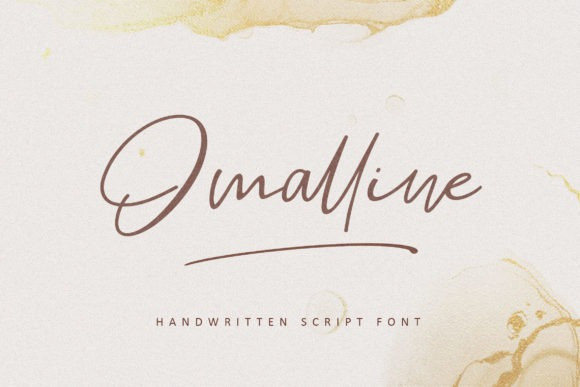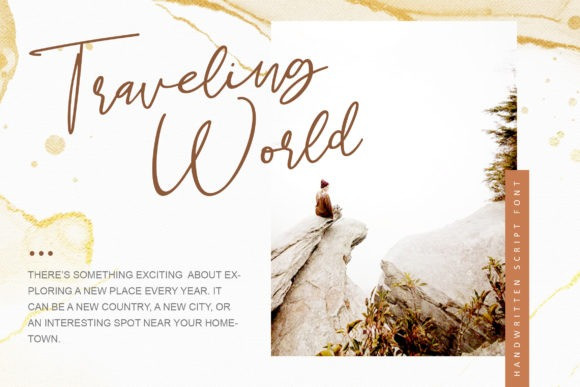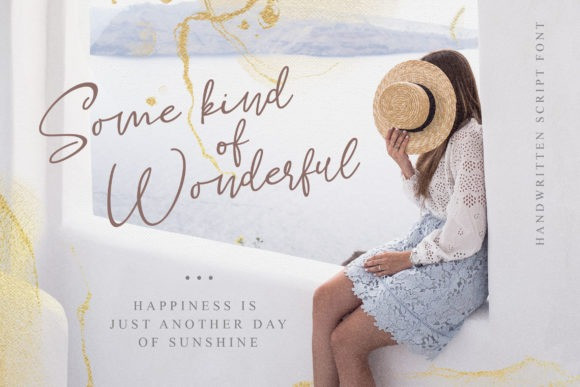
Omalline Font
Omalline feels equally charming and elegant. It will add a luxury spark to any design project that you wish to create! This font is PUA encoded which means you can access all of the amazing glyphs and ligatures with ease!